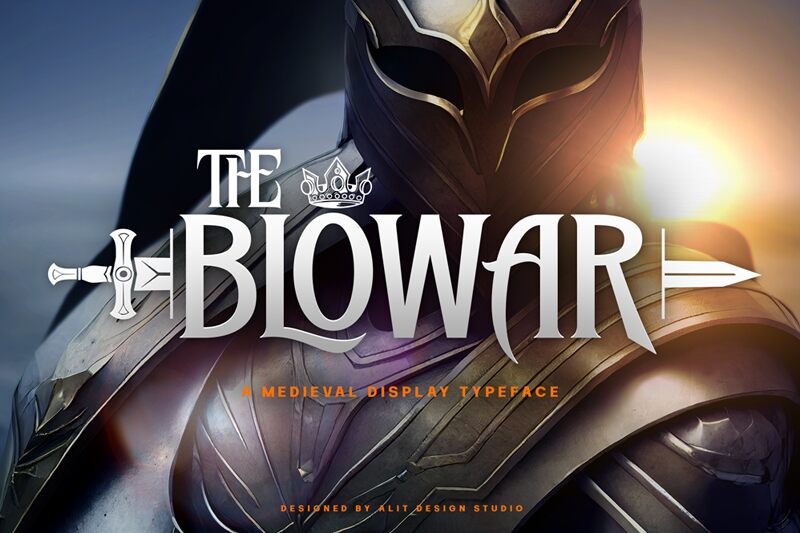
The Blowar, crafted by Alit Design, merges the timeless allure of gothic typography with a sleek, modern twist. Its condensed silhouette elegantly stretches skywards, lending any text an air of sophistication and strength. The font radiates a stately charm that commands attention while maintaining a crisp and contemporary vibe.
Perfect for designers looking to infuse their projects with a blend of classic grandeur and modern minimalism, The Blowar shines in branding, editorial work, and upscale advertising campaigns. Its distinct personality makes it ideal for titles that need to stand out yet exude understated elegance.